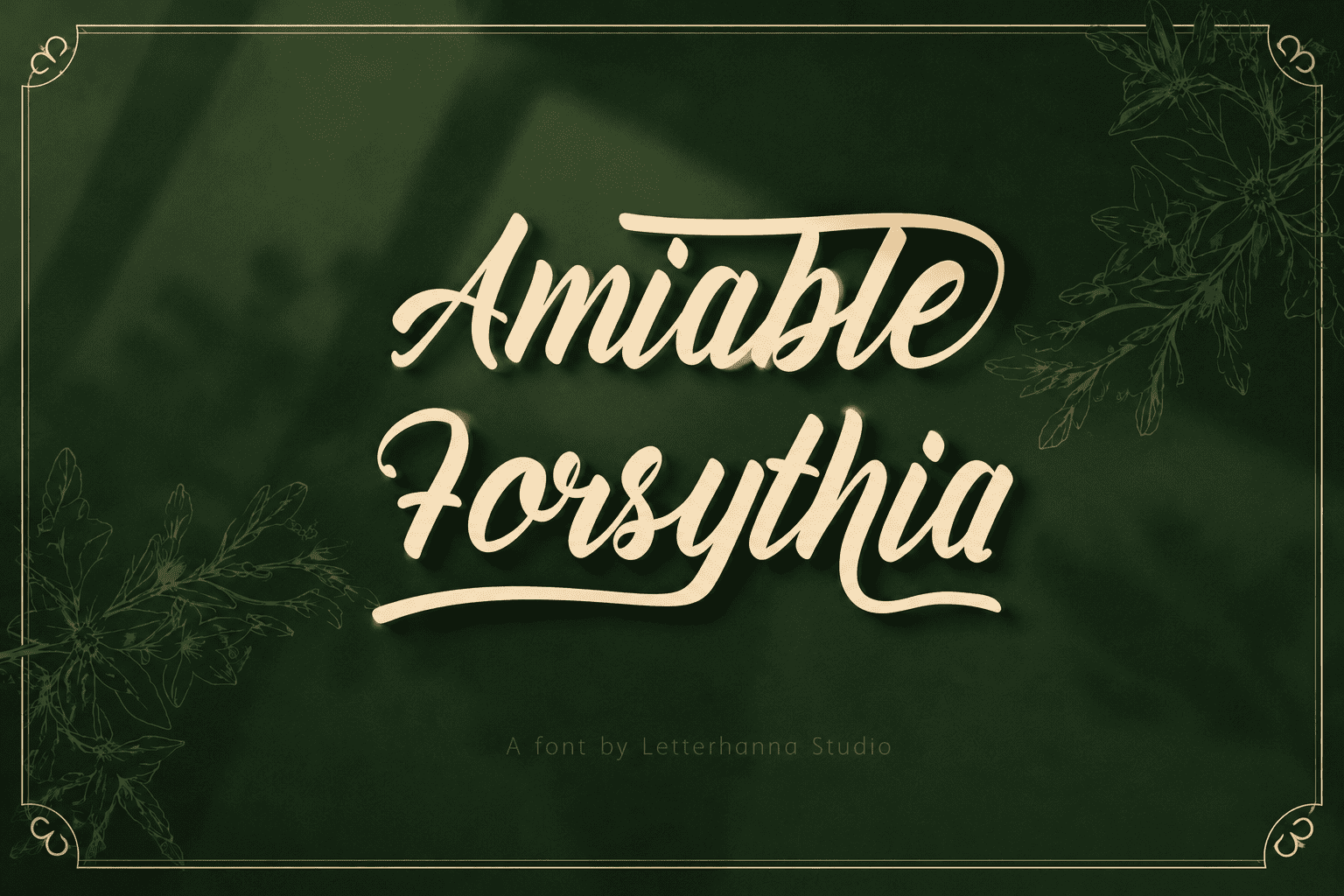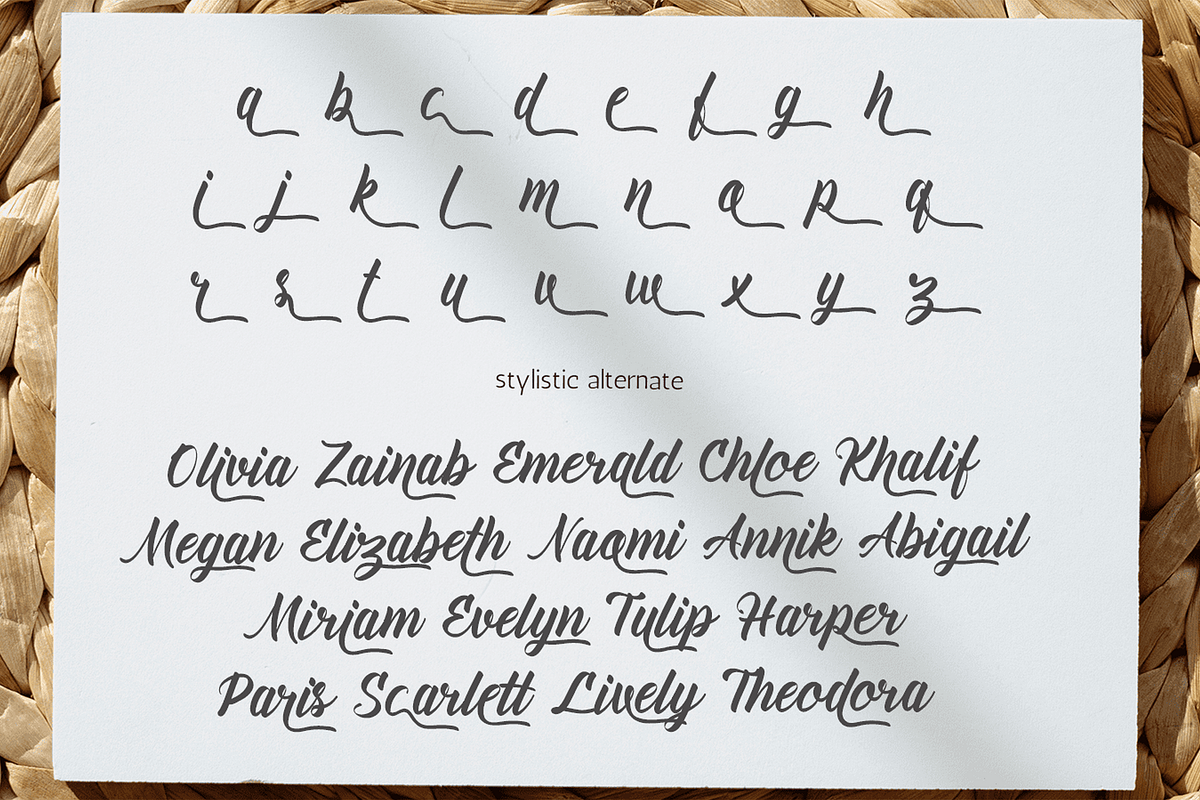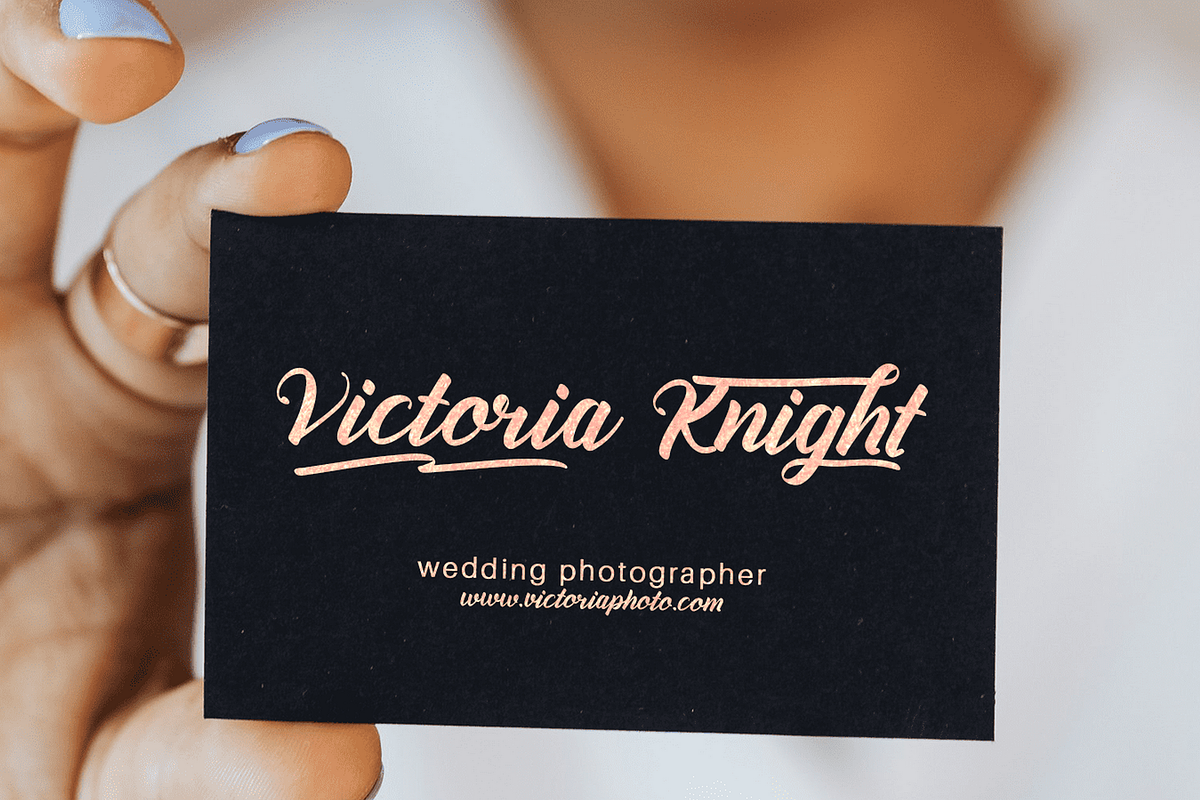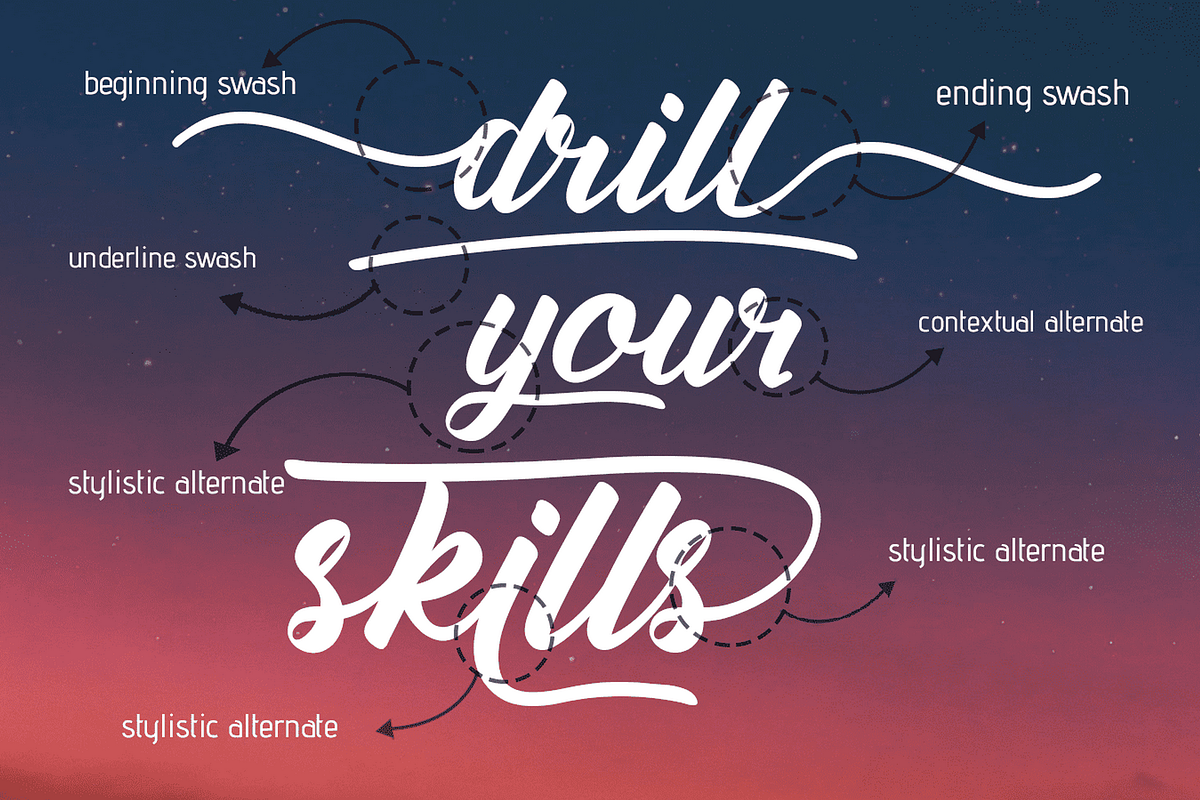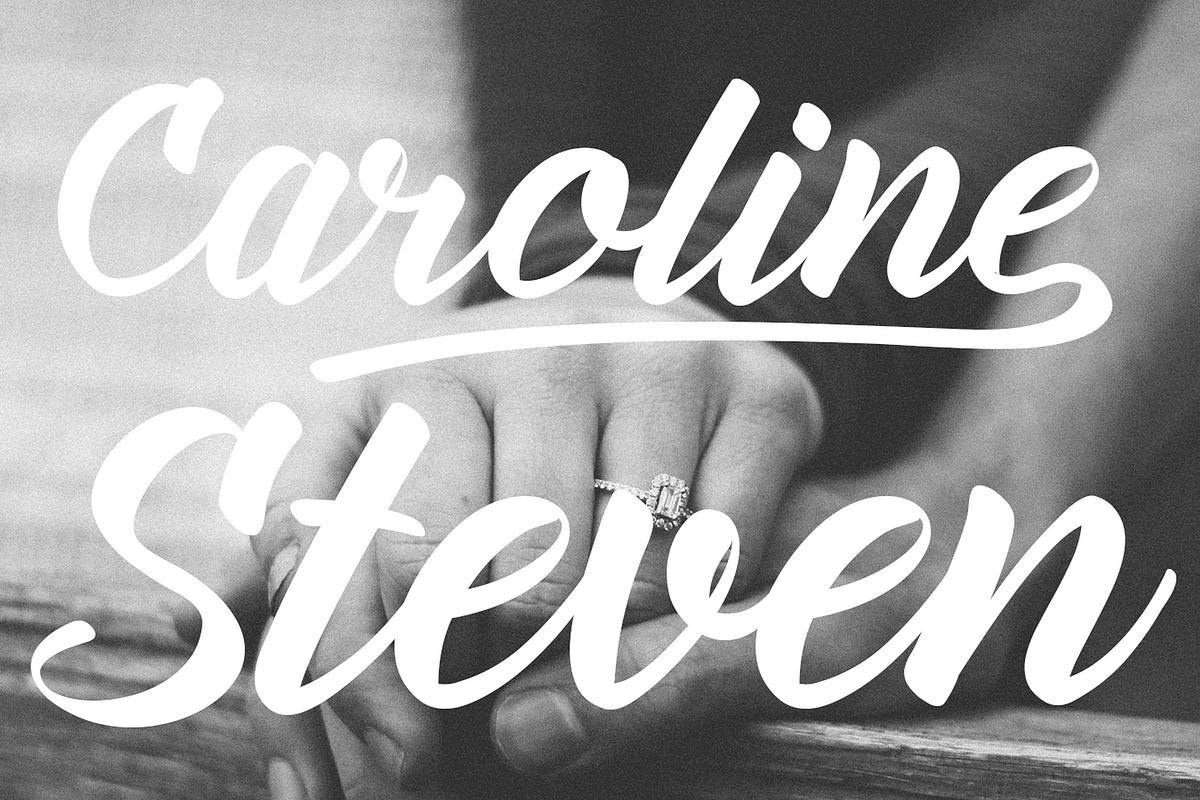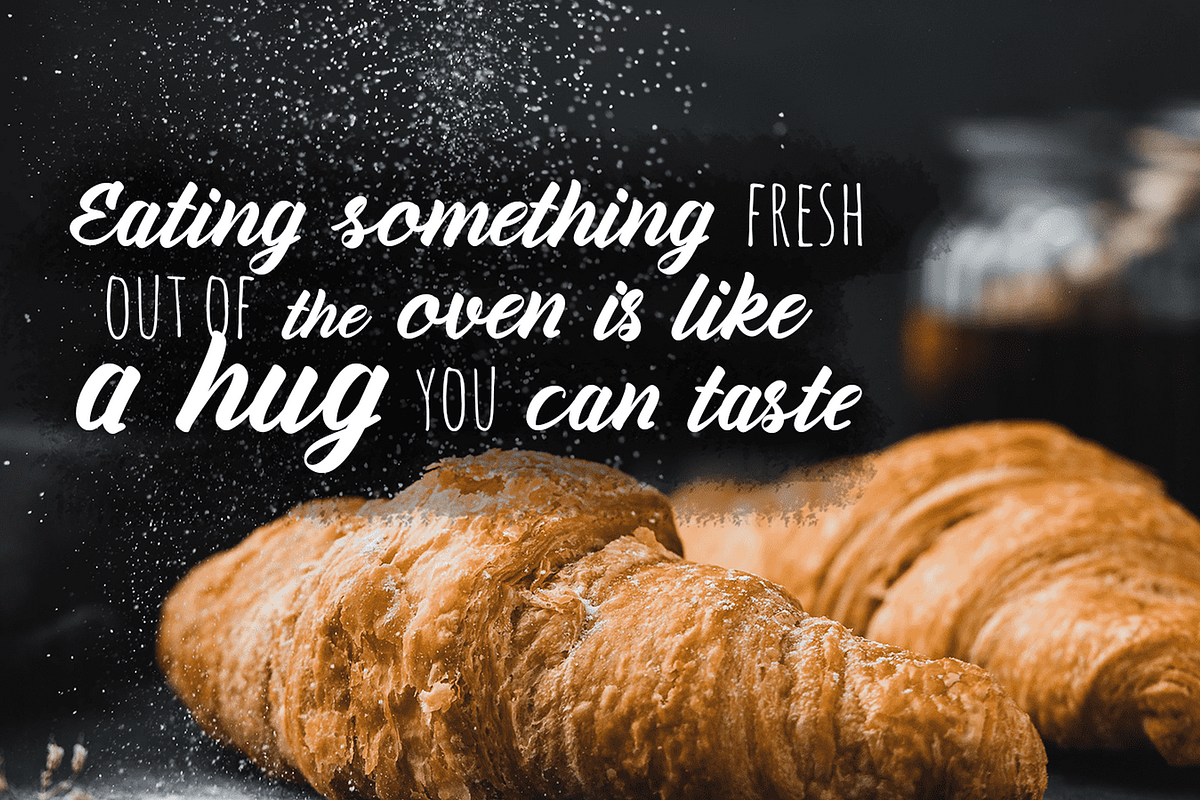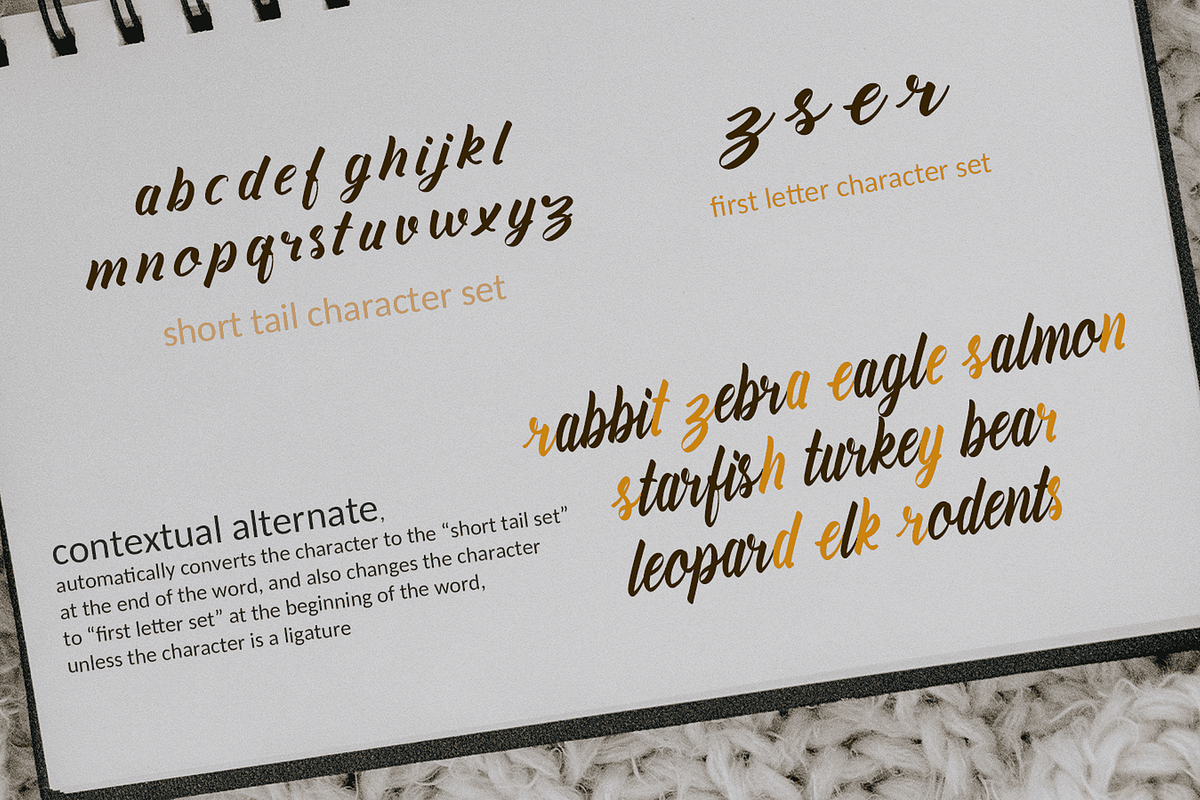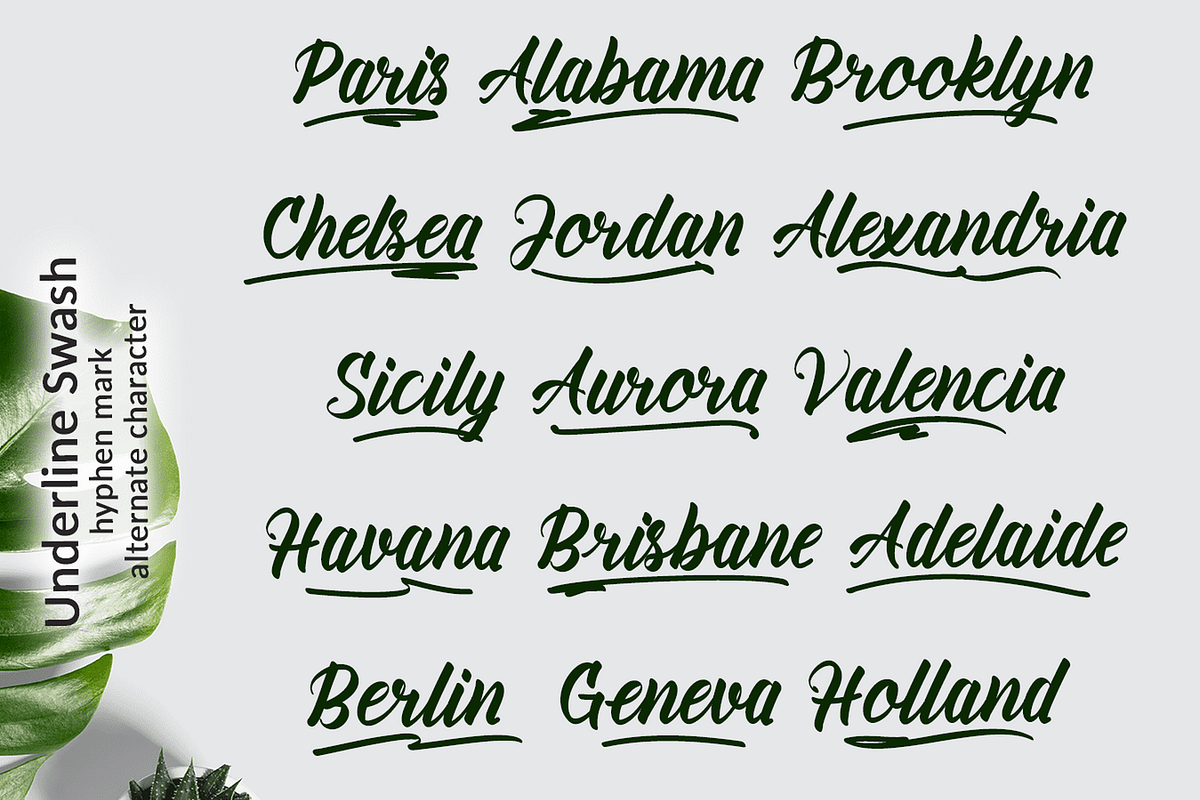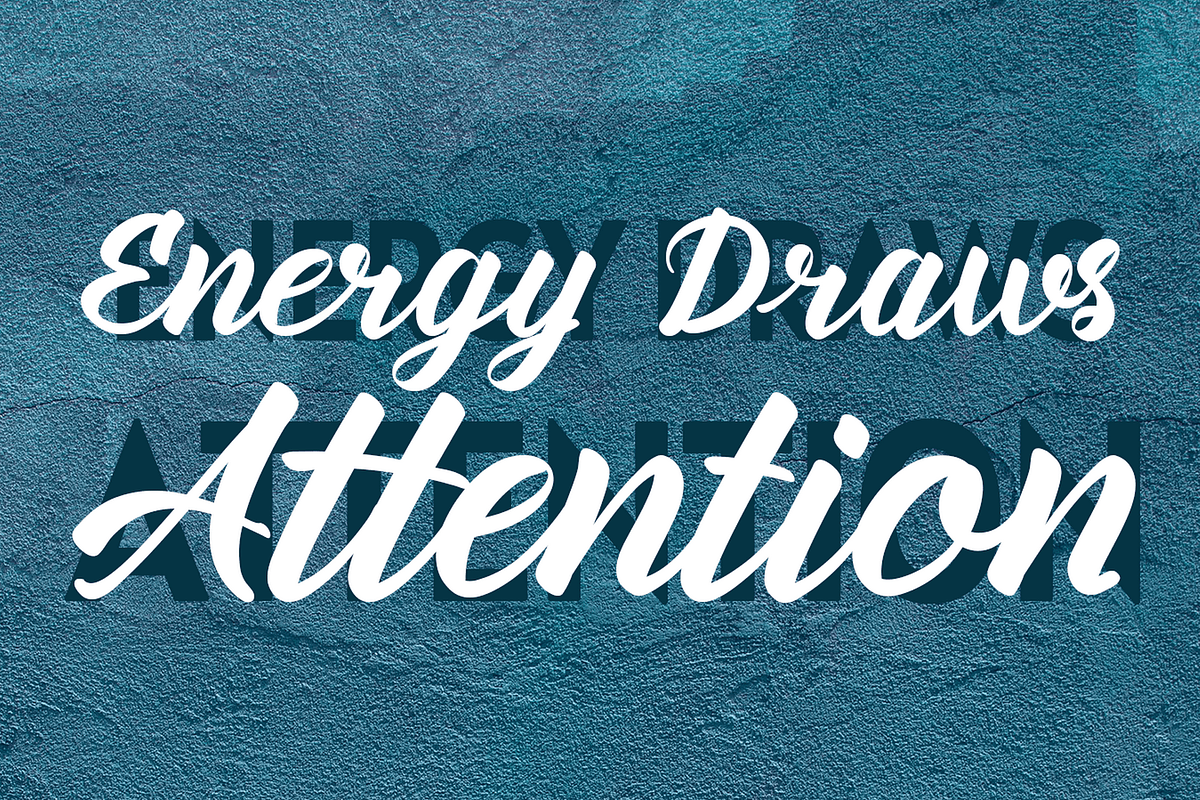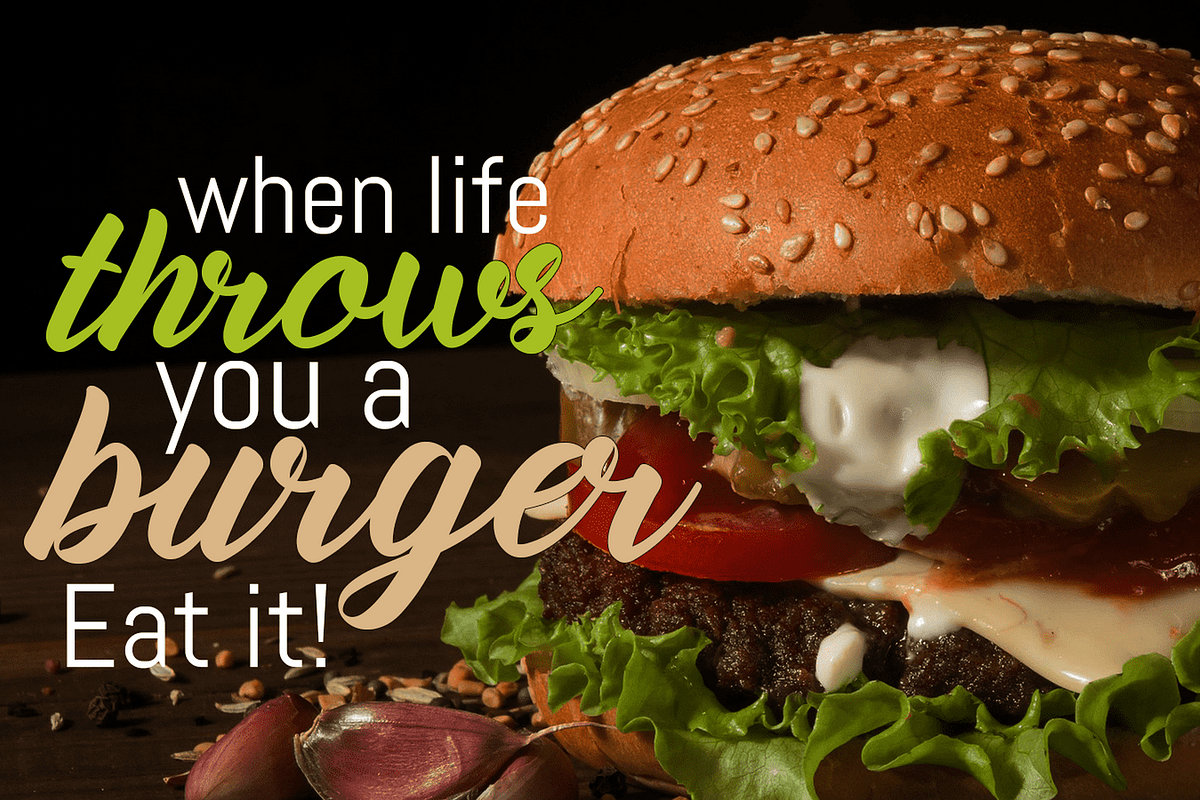
Amiable Forsythia Font
Amiable Forsythia Script Font – a new modern, clean & fresh script with a lot of swashes and stylistic alternate, make this font looks elegant, natural, stylish and perfect for any awesome projects
Amiable Forsythia comes with stylistic alternate, ligatures, swashes, and multilingual support.
Beginning and ending swashes
Underline swashes